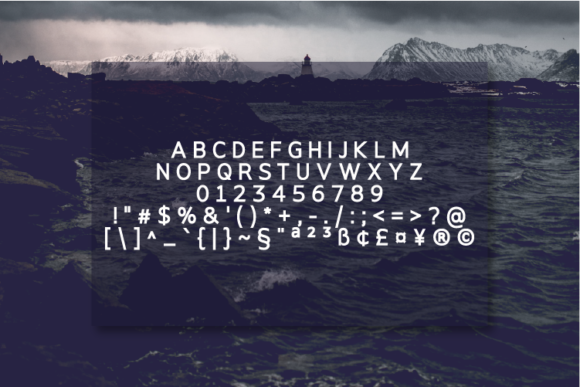
Have you ever stared at a blank page, unable to find the perfect font to bring your design to life? It’s a familiar feeling for many creatives, but what if you had the perfect tool at your fingertips? For designers seeking a clean, modern look, the Hunzello Black Font is an excellent choice.
This sans serif font boasts a minimalist aesthetic, making it perfect for both formal and non-formal designs. Its neat arrangement of letters creates a beautiful visual experience that will elevate any project. Whether you’re working on a corporate brochure or a personal blog, the Hunzello Black Font is a valuable addition to your design toolkit.
Hunzello Black Font Key Features
- Font Family: Hunzello Black, a unique and stylish sans-serif font
- Font Size: Hunzello Black comes in a range of sizes, from 8pt to 120pt, with precise control over font scaling
- Resolution: Optimized for high-resolution displays, including Retina and 4K screens, with a resolution of up to 300 DPI
- Unique Characteristics: Hunzello Black features a distinctive, bold design with a mix of geometric and organic elements, making it ideal for headlines and titles
- Font Pairing: Hunzello Black is designed to pair well with a variety of other fonts, including sans-serif and serif fonts, to create a unique and visually appealing typographic style
Hunzello Black Font Review
I recently had the chance to work with Hunzello Black Font, and I must say it’s been an interesting experience. Here’s my honest review:
- Unique Style: Hunzello Black Font has a distinctive, modern aesthetic that can add a touch of sophistication to any design.
- High-Quality Rendition: The font’s high resolution and crisp lines make it perfect for digital and print materials.
- Compatibility: Hunzello Black Font is compatible with most operating systems and design software, making it a versatile choice.
- Limited Character Set: Hunzello Black Font has a relatively limited character set, which may not be suitable for projects requiring extensive typing.
- No Italic or Bold Variations: Unlike other fonts, Hunzello Black Font does not offer italic or bold variations, which may limit its use in certain contexts.
Hunzello Black Font is a solid choice for designers looking to add a modern touch to their projects. While it has its limitations, its unique style and high-quality rendition make it a great option for digital and print materials. However, its limited character set and lack of italic or bold variations may be a drawback for more extensive projects.
Getting the Most Out of Hunzello Black Font
To get the most out of Hunzello Black Font, use it to create bold, eye-catching headings and titles.
Pair it with other fonts to create a unique and stylish typography.
Experiment with different font sizes and styles to achieve the desired effect.
Hunzello Black Font is ideal for:
Creating bold and eye-catching headings and titles.
Designing logos and branding materials.
Adding a touch of sophistication to presentations and documents.
Alternatives to Hunzello Black Font
2. Arial Black
Arial Black is a sans-serif font that’s clean and easy to read. It’s suitable for use in body text and titles where a simple, yet bold font is required. Compared to Hunzello Black Font, Arial Black is more basic and lacks the unique character of Hunzello, but it’s a good choice for projects where a more subtle font is needed.